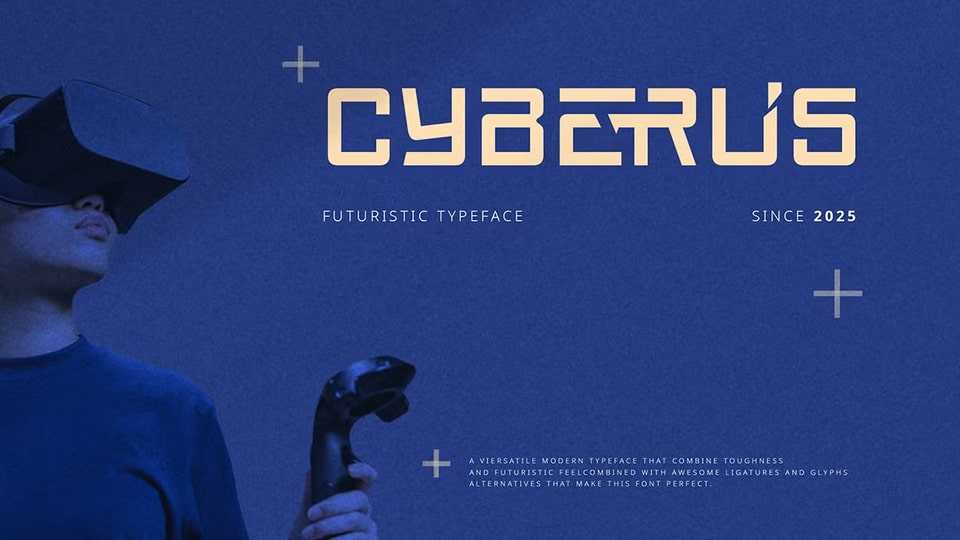
Download Cyberus font, a sleek, futuristic sans-serif typeface that combines clean lines with a cutting-edge urban vibe. Its modern design exudes a sense of technology and innovation.